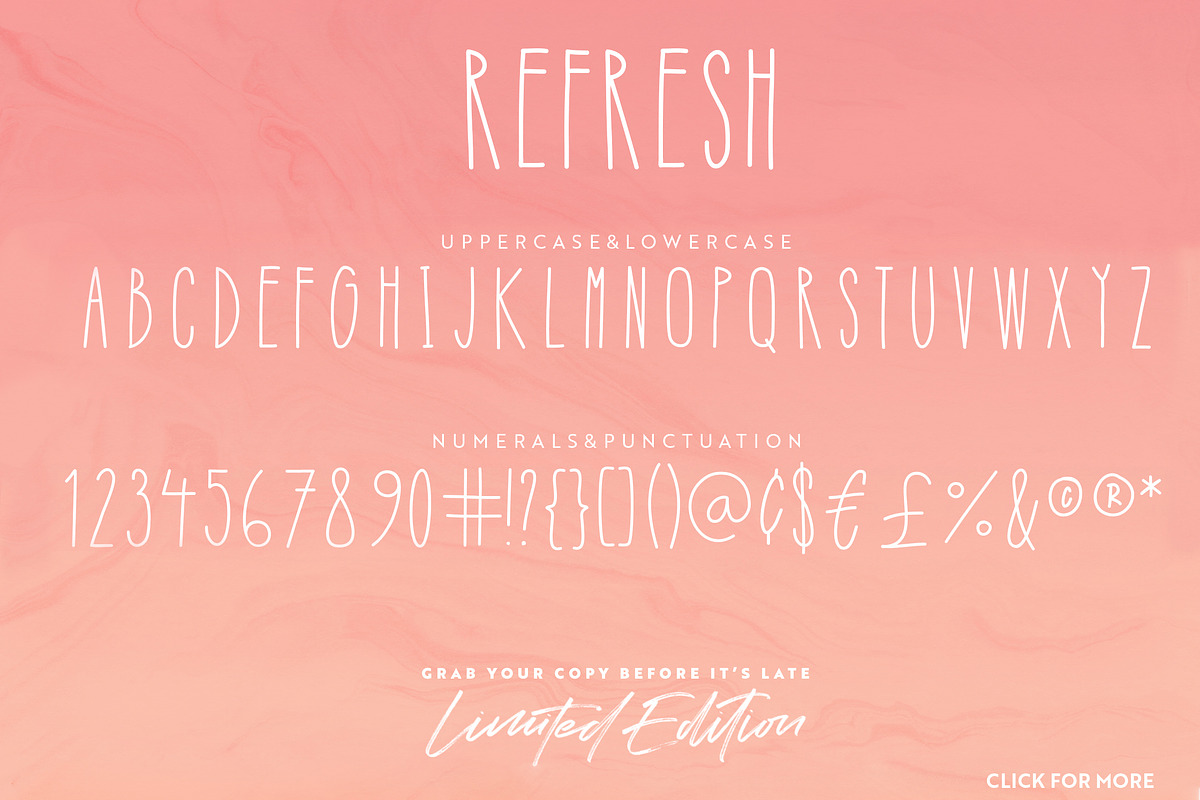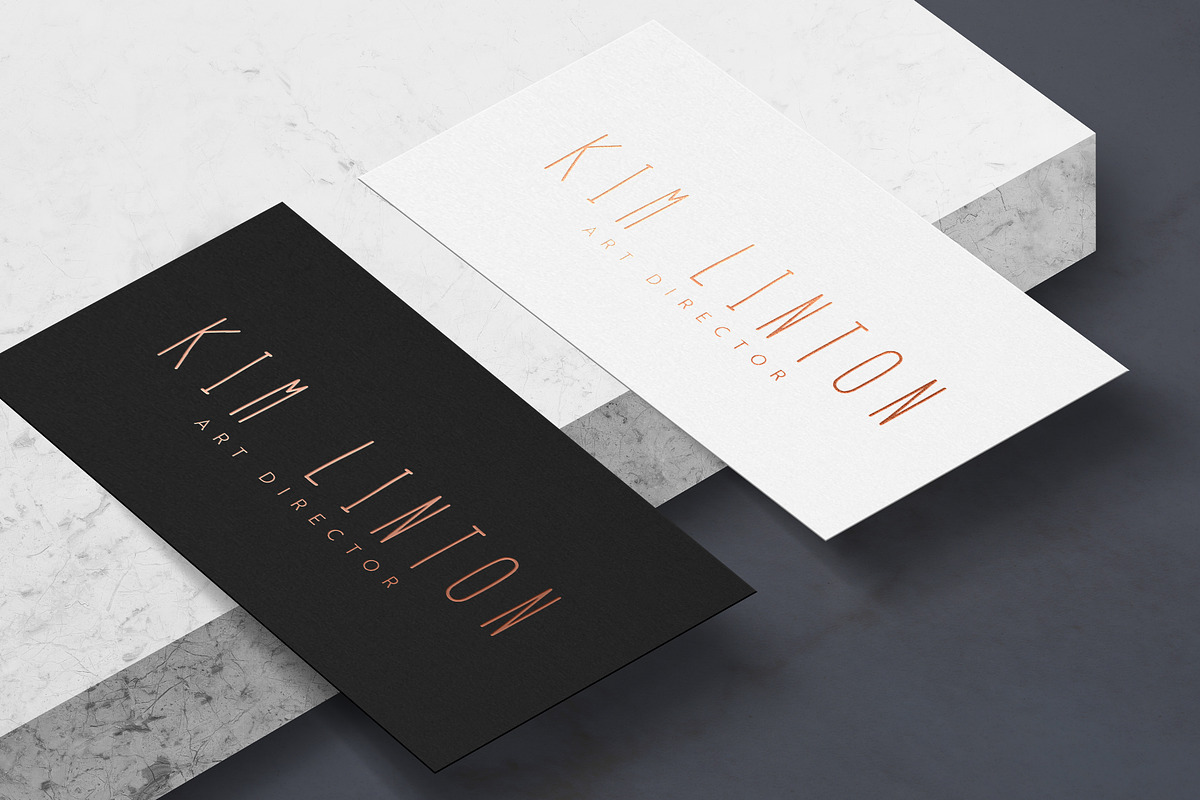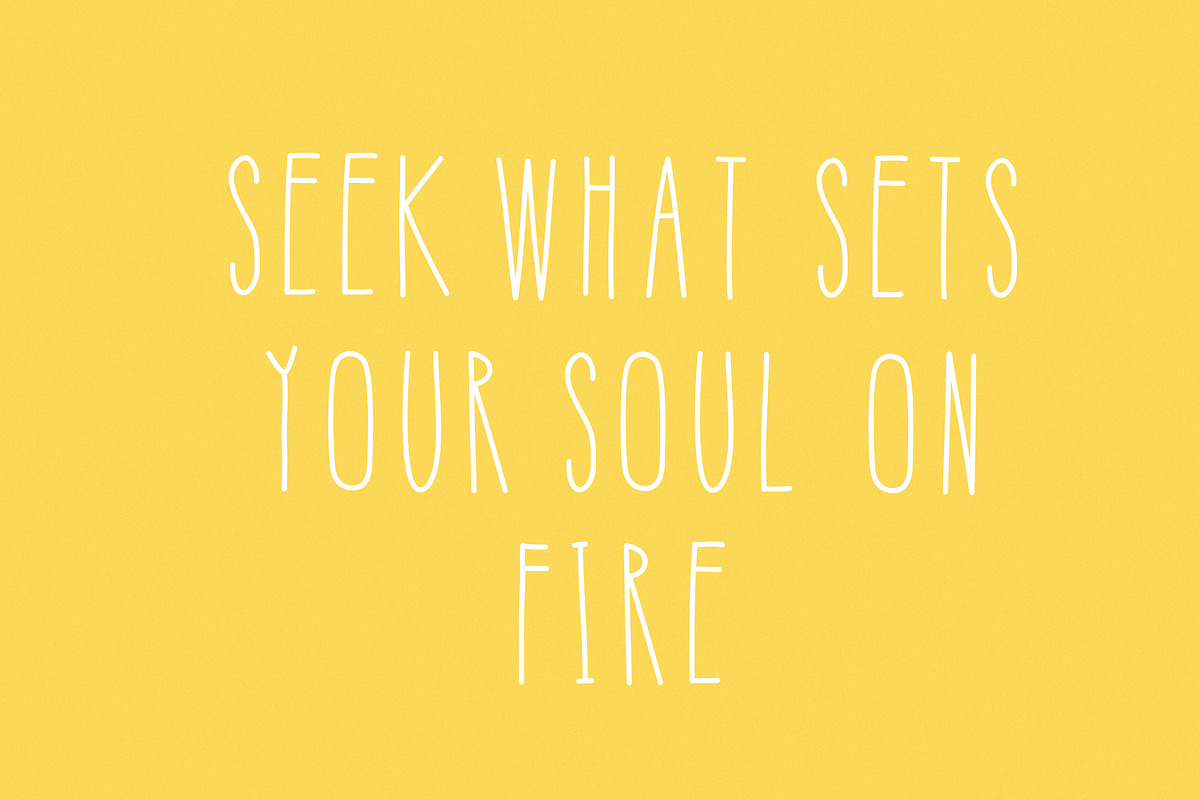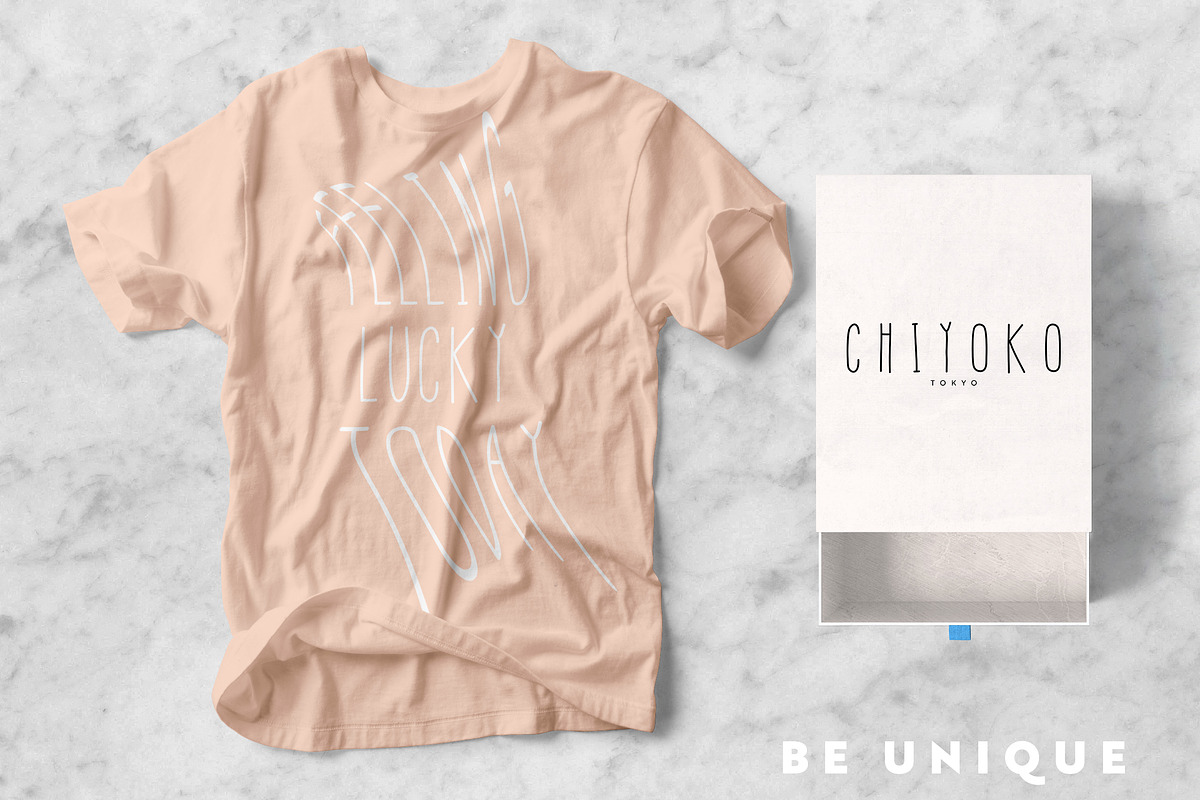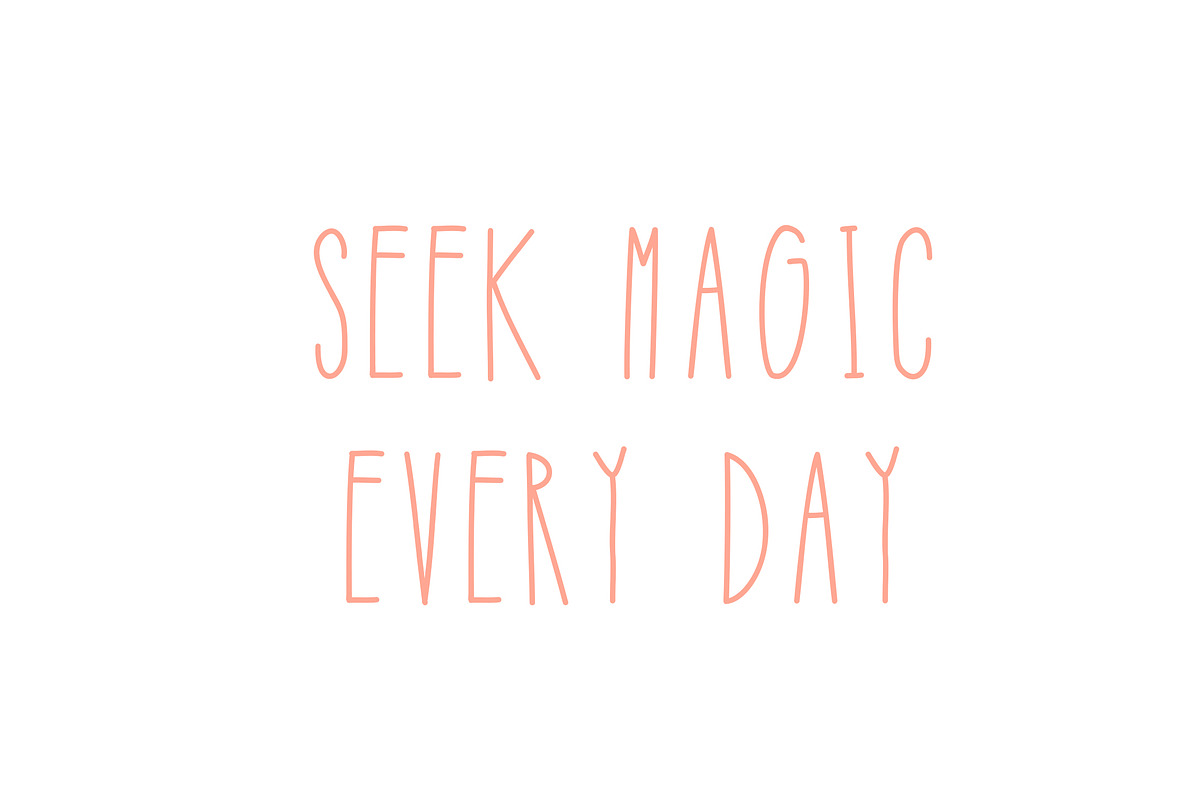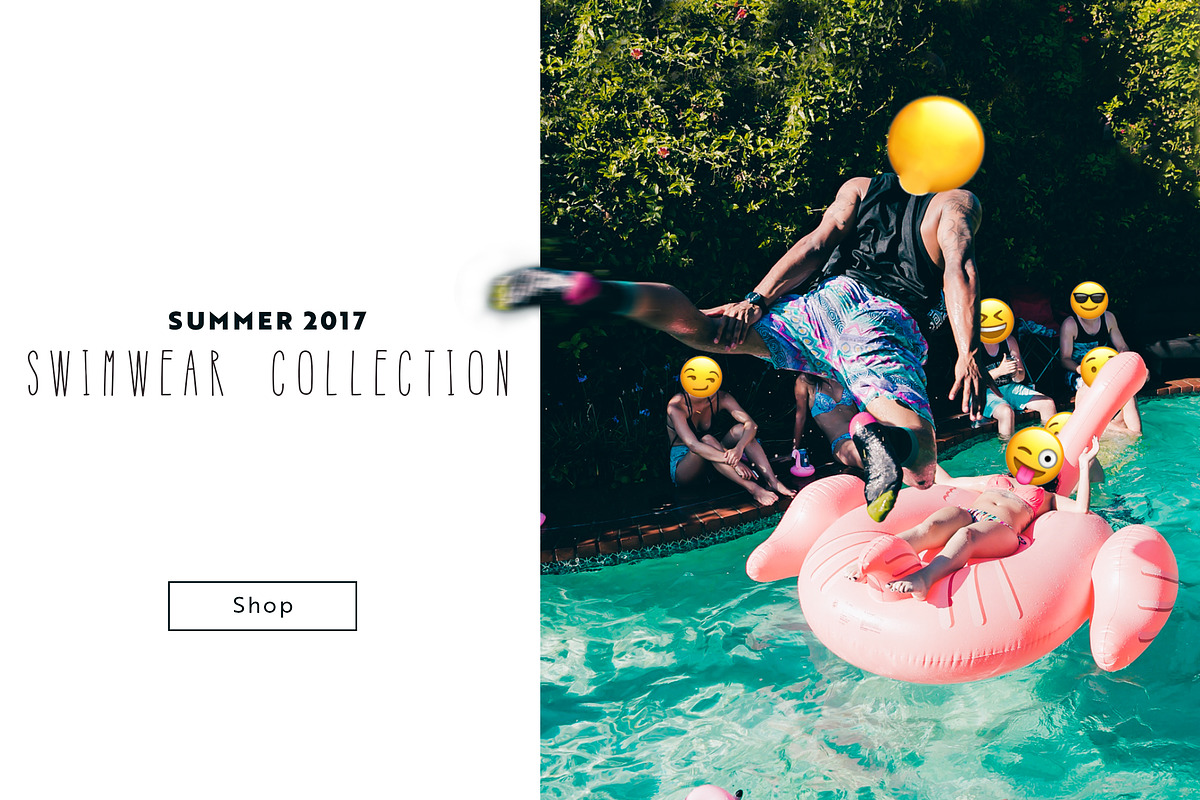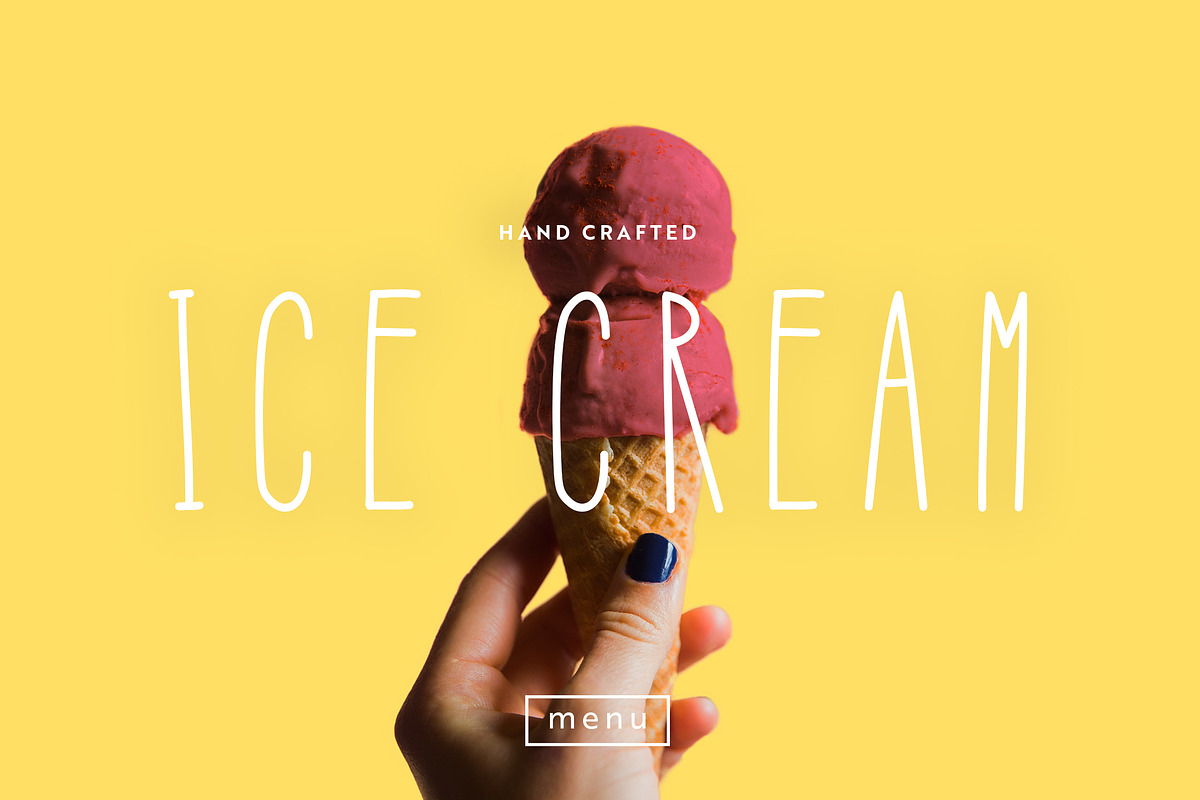
Refresh Font +Bonus
A cool refreshing font The perfect choice for this summer!! Refresh is a light and modern handwriting font with lots of soul.
its A fun summer font Perfect for Your logo designs, branding , handwritten quotations, product packaging, merchandise & social media and more:)...
Refresh- handwrtten font containing uppercase, numerals and a punctuation Comes in two formats TTF & OTF formats + Web font.
Warm recommendation to play with wide spacing (tracking)
Be unique, be yourself.